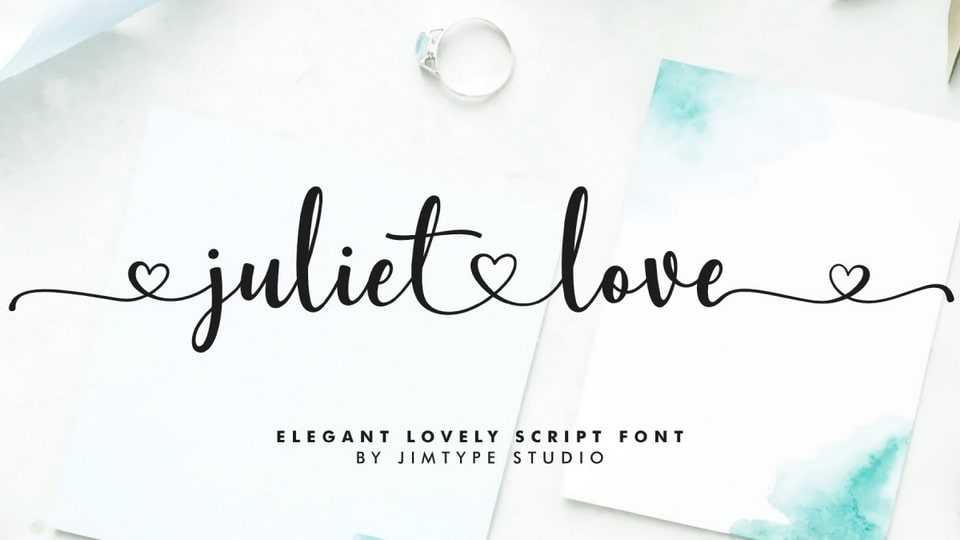
Download Juliet Love font, a stunning typeface perfect for wedding themes, featuring elegant script swashes. Unique heart connections between letters infuse your designs with a romantic charm, creating an unforgettable visual appeal.